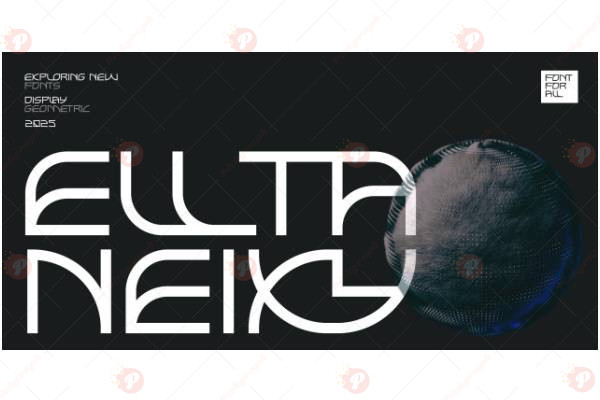
The Elltaneixy Free Font is an elegant and modern typeface, perfect for headlines, posters, logos, branding, social media graphics, and display typography. Its clean and contemporary design ensures your designs look professional, stylish, and visually appealing.
Ideal for digital and print projects, Elltaneixy Free adds sophistication and clarity to all your creative work.
Style: Modern / Elegant / Display Typeface
Perfect for: Headlines, Posters, Logos, Branding, Social Media & Display Typography
Enhance your projects with the elegant and versatile Elltaneixy Free Font.